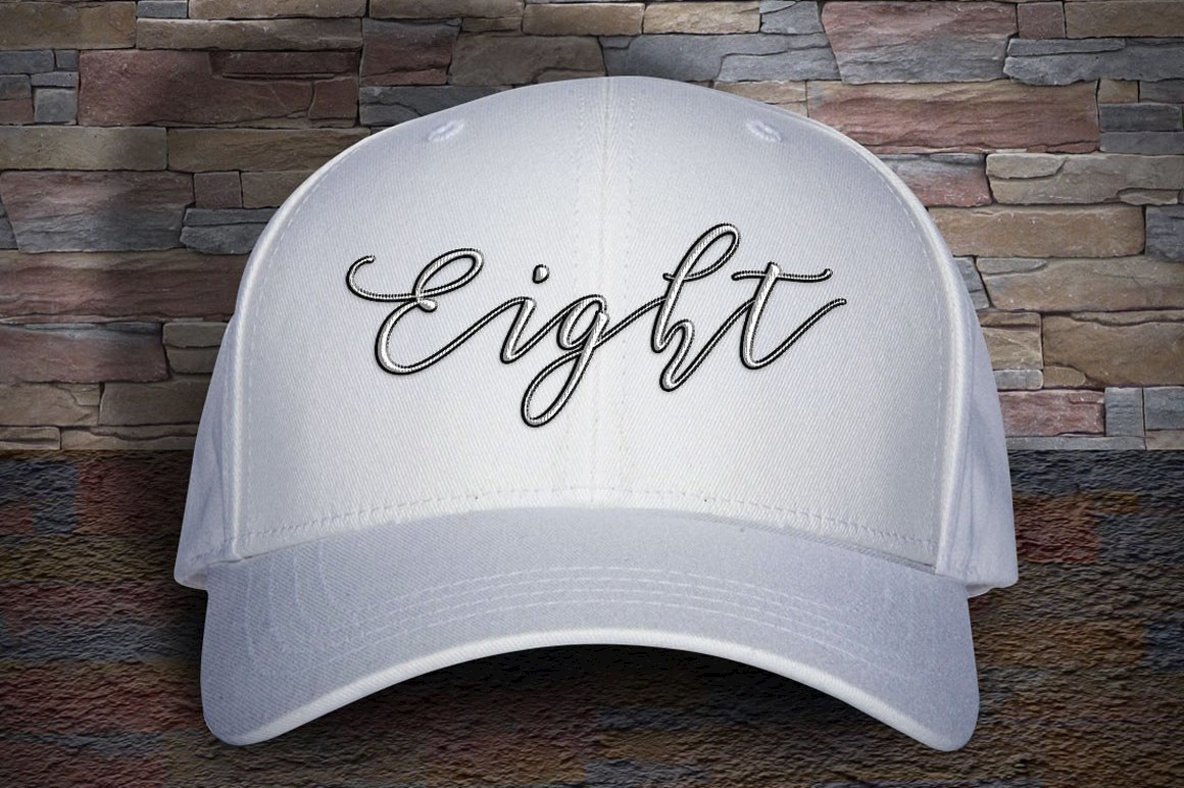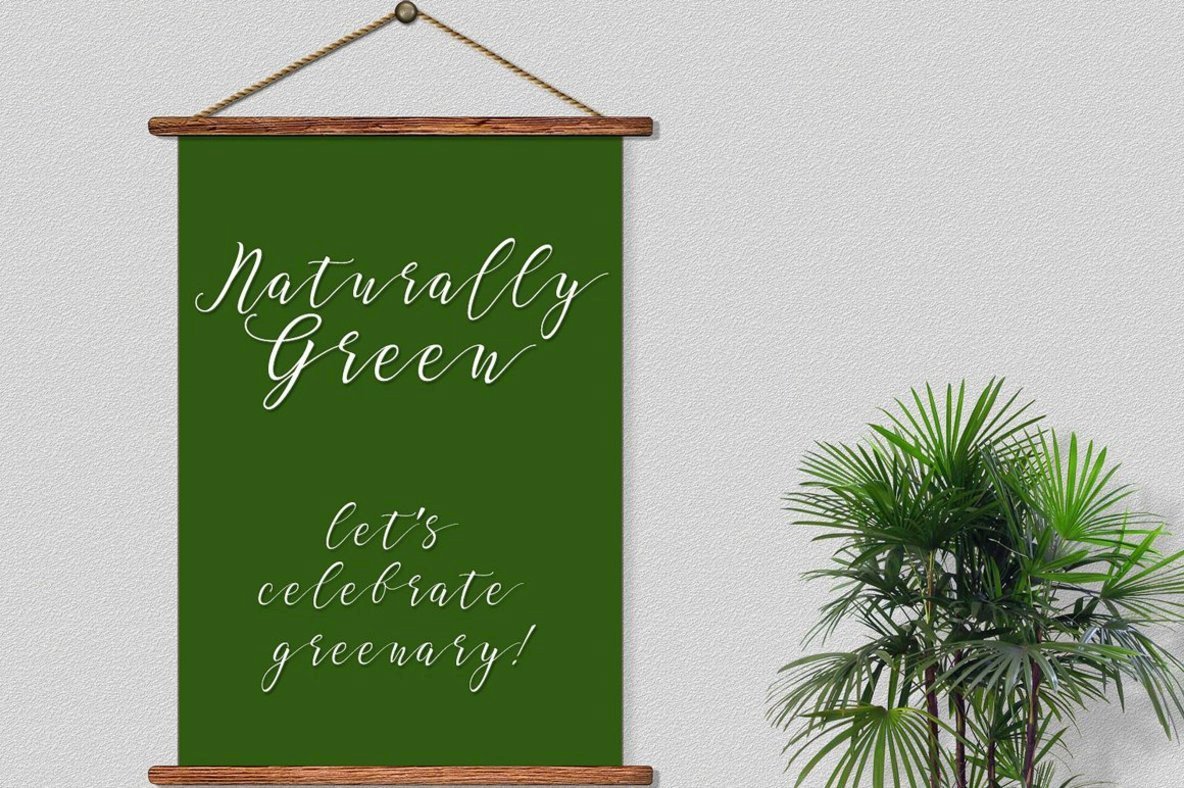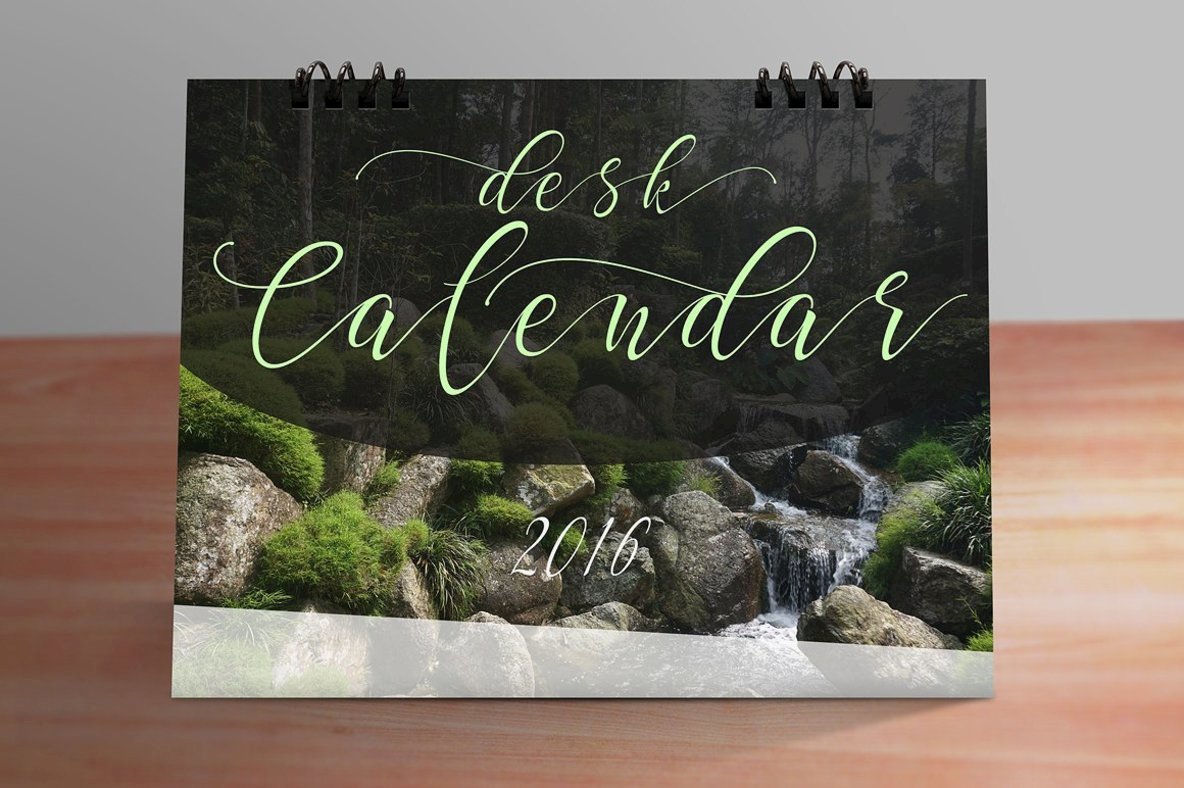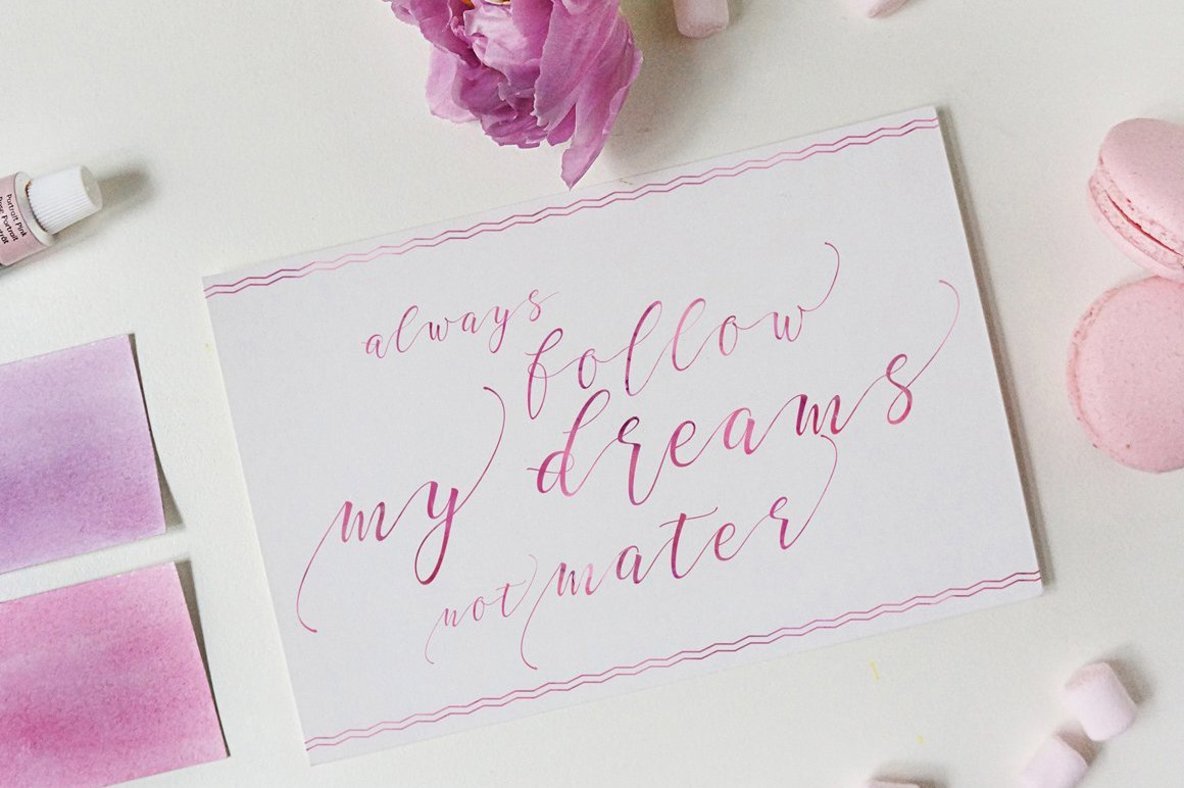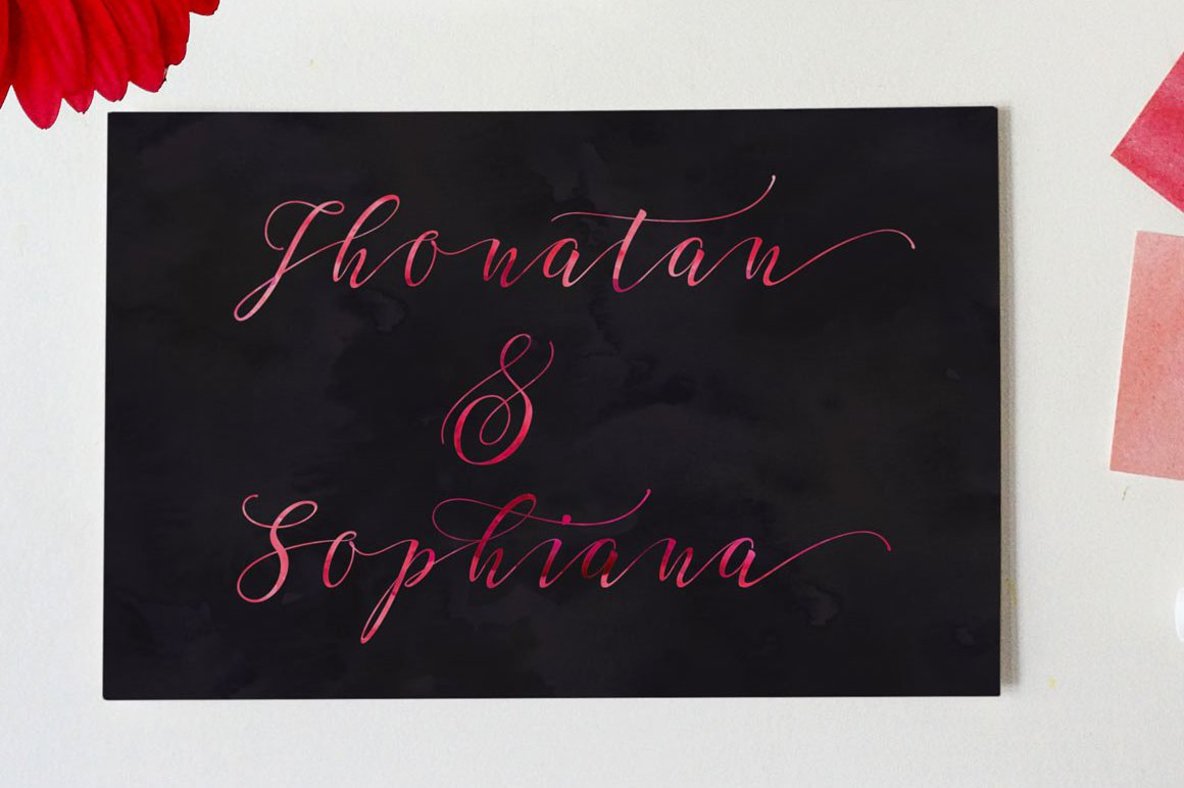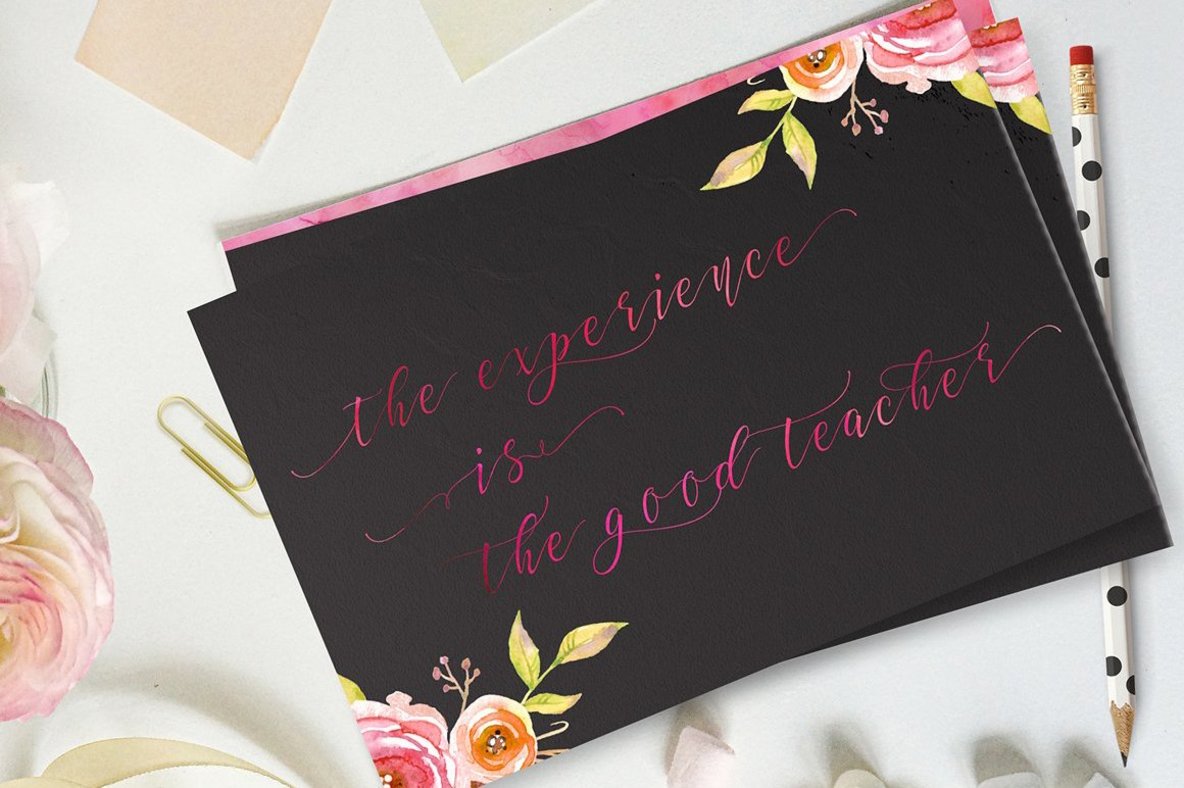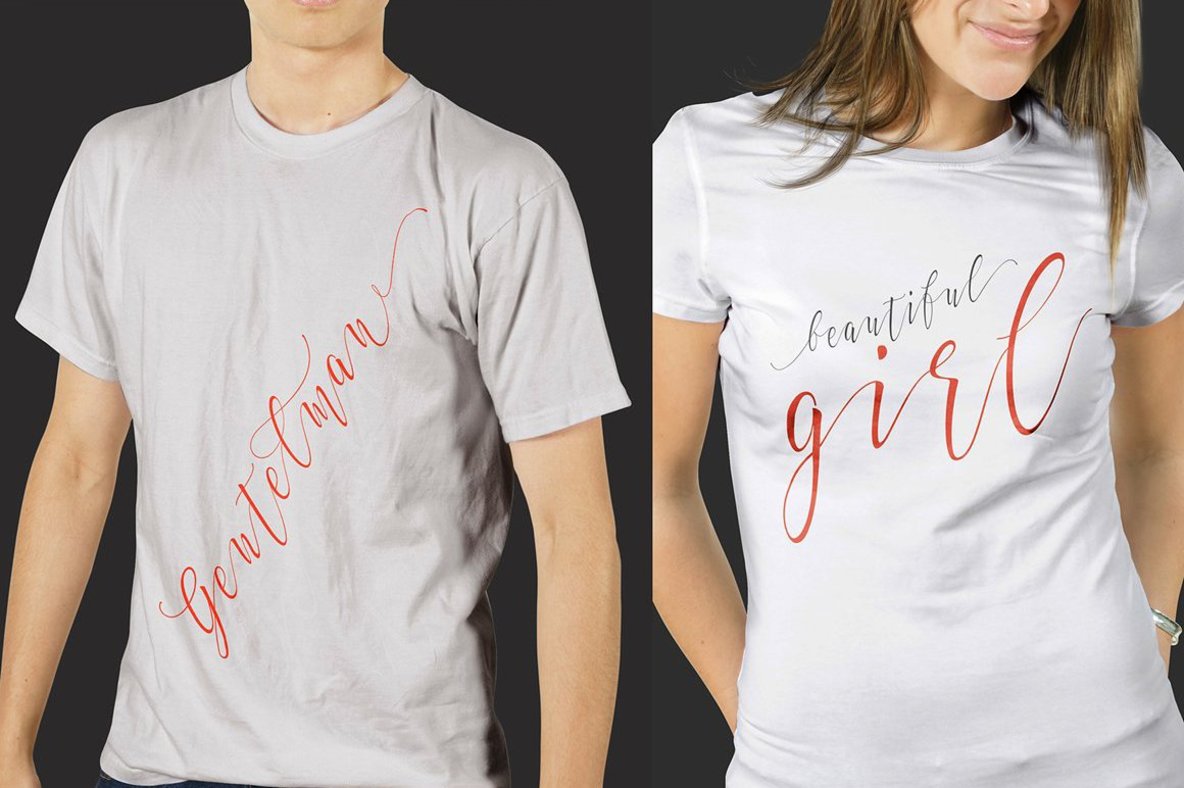
Elastic Font
Elastic
Elastic by Artisan Studio captures the essence of modern calligraphy through its uniquely handwritten style, offering an ease of elegance and natural fluidity in any design application. Perfectly suited for projects that require a touch of grace and authenticity, this font is as versatile as it is sophisticated. Features: The Elastic font is compatible with a wide array of software, including Adobe Photoshop, Adobe Illustrator, Adobe InDesign, CorelDraw, and Microsoft Office, thanks to its PUA Unicode (Private Use Areas) inclusion. This makes it exceptionally user-friendly for graphic designers who require diverse language support. Supported Languages: Breton, Catalan, Czech, Danish, Estonian, French, German, Hungarian, Icelandic, Italian, Romanian, Scottish Gaelic, Slovak, Latvian, Lithuanian, Norwegian, English, Finnish, Polish, Portuguese, Slovenian, Spanish, Swedish, Turkish, Welsh. Elastic is a perfect choice for an array of purposes, from headings and logos to wedding invitations, t-shirts, letterheads, signage, labels, posters, and badges. For optimal use of its OpenType stylistic alternates, employing programs like Adobe Illustrator CS, Adobe InDesign, or CorelDraw X6-X7 is advisable.Elastic: A Modern Calligraphy Font with Natural Elegance